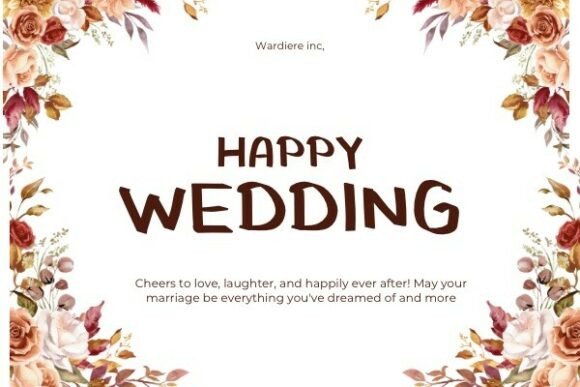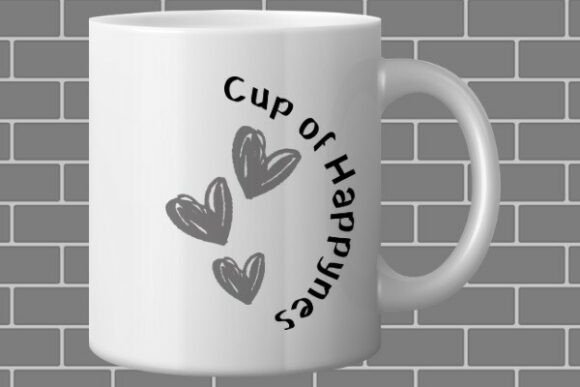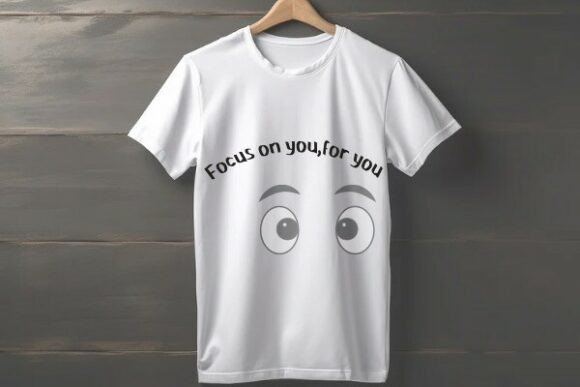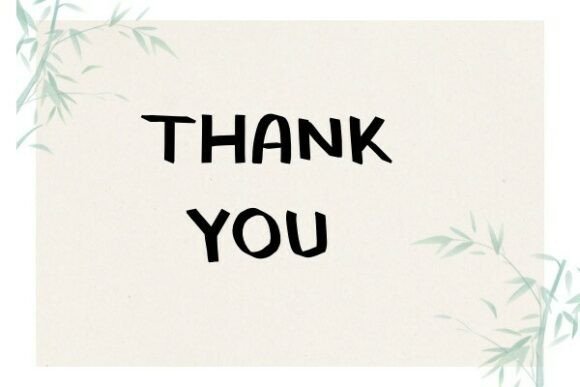
Introducing DANE: The Ultimate Handwritten Font for Personalized Creations
Are you tired of using the same old fonts for your designs? Do you want to add a touch of personality and uniqueness to your creations? Look no further than DANE, a beautifully crafted handwritten font that’s perfect for designers and crafters alike. In this article, we’ll dive into the world of DANE and explore its features, benefits, and uses.
What is DANE?
DANE is a versatile handwritten font that’s designed to help you add a personal touch to your designs. Whether you’re creating T-shirts, mugs, greeting cards, invitations, or mockups, DANE is the perfect choice. This font is carefully crafted to capture the essence of individuality, making it an excellent way to etch your way into the hearts of your viewers.
Features of DANE
So, what makes DANE stand out from other fonts? Here are some of its key features:
- Unique and Handwritten: DANE is a truly unique and handwritten font, giving it a personal and authentic feel.
- Versatile: This font is incredibly versatile and can be used for a wide range of designs, from casual to formal.
- Easy to Read: Despite its unique and handwritten nature, DANE is incredibly easy to read, making it perfect for body text and headlines.
- Scalable: DANE is designed to be scalable, ensuring that it looks great at any size.
Benefits of Using DANE
So, why should you choose DANE for your designs? Here are some of the benefits of using this amazing font:
- Adds Personality: DANE adds a touch of personality and individuality to your designs, setting them apart from the crowd.
- Enhances Creativity: With DANE, you can unleash your creativity and create unique and eye-catching designs.
- Perfect for Branding: DANE is perfect for branding and can help you establish a consistent visual identity.
- Great for DIY Projects: Whether you’re a crafter or a DIY enthusiast, DANE is perfect for creating personalized gifts and decorations.
Uses of DANE
DANE is an incredibly versatile font that can be used for a wide range of projects. Here are some ideas to get you started:
- T-Shirts and Apparel: Use DANE to create unique and personalized T-shirts, hoodies, and other apparel.
- Mugs and Ceramics: Add a touch of personality to your mugs, cups, and ceramics with DANE.
- Greeting Cards and Invitations: Create beautiful and personalized greeting cards and invitations with DANE.
- Mockups and Digital Art: Use DANE to add a touch of realism and personality to your mockups and digital art.
Tips for Using DANE
Here are some tips for getting the most out of DANE:
- Experiment with Colors: DANE looks great in a wide range of colors, so don’t be afraid to experiment and find the perfect hue for your design.
- Mix and Match: Try mixing and matching DANE with other fonts to create unique and eye-catching combinations.
- Pay Attention to Kerning: Make sure to pay attention to kerning and adjust the spacing between letters to ensure that your text looks great.
In conclusion, DANE is an amazing handwritten font that’s perfect for designers and crafters alike. With its unique and authentic feel, versatility, and ease of use, DANE is an excellent choice for adding a touch of personality to your designs. Whether you’re creating T-shirts, mugs, greeting cards, or mockups, DANE is sure to help you stand out from the crowd. So why wait? Download DANE today and start creating your own unique and personalized designs!